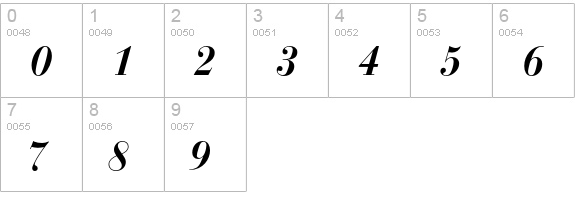
Bauer Bodoni Bold Italic Font Details
Bauer Bodoni Bold Italic is a strong, high-contrast, italic variant in the Bauer typeface family \xE2\x80\x94 well suited to headlines, attention-grabbing titles, and strong calls-to-action.
Bauer Bodoni Bold Italic is a striking and elegant typeface that exudes sophistication and refinement. Its bold weight and italic style make it perfect for adding a touch of luxury and flair to any design project. The sharp serifs and graceful curves of Bauer Bodoni Bold Italic create a timeless and classic look that is sure to make a statement. This font is ideal for use in headlines, logos, branding materials, and any other project where you want to make a bold impression. Its versatility allows it to be paired with both serif and sans-serif fonts, making it a valuable addition to any designer's toolkit. And the best part? Bauer Bodoni Bold Italic is available for free download at FontsMarket.com. Now you can access this stunning font without breaking the bank, allowing you to elevate your designs without any added cost. Don't miss out on the opportunity to enhance your projects with the beauty and sophistication of Bauer Bodoni Bold Italic.